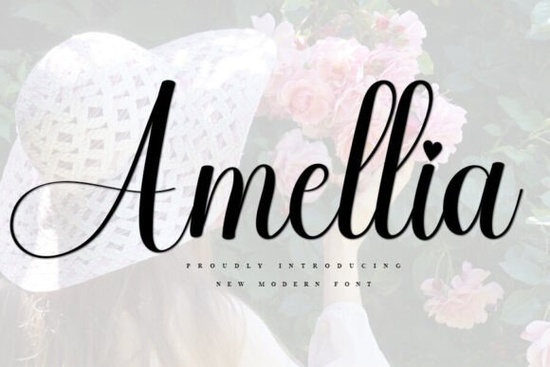
The Amellia Font is a script typeface that blends a fresh, modern feel with understated elegance. If you're working on wedding invitations, logo designs, social media banners, or printable crafts, this font offers a clean yet expressive look that fits right in. It's one of those typefaces that doesn't try too hard but still manages to stand out and that's exactly why so many designers and small business owners keep reaching for it.
What Makes Amellia Font Different from Other Script Fonts?
There are thousands of script fonts available online, so what sets Amellia apart? It comes down to balance. Some script fonts lean too far into ornate territory and become hard to read. Others are so minimal they lose personality. Amellia sits comfortably in the middle its letterforms are smooth and connected, but each character still has enough definition to remain legible at various sizes.
This makes it a strong choice for projects where you need both style and readability. Think about wedding stationery, where guests need to read event details clearly, or a business card where your name needs to look polished without feeling stuffy. Amellia handles both scenarios well.
What Can You Use Amellia Font For?
Amellia works across a surprisingly wide range of design projects. Here are some common uses where this font really shines:
- Wedding invitations and event stationery The elegant flow of the lettering adds a romantic, personal touch.
- YouTube banners and social media graphics Its clean curves look great on screen and hold up well at different resolutions.
- Logo mockups and branding kits Especially for businesses in fashion, beauty, or lifestyle niches.
- Flyers, ID cards, and posters The simplicity of the design keeps things readable even at smaller sizes.
- Crafts and DIY projects Works beautifully with cutting machines for vinyl decals, heat transfers, and paper crafts.
- Print-on-demand products Mugs, tote bags, and t-shirts all benefit from a versatile script font like this.
If you're a print-on-demand seller, having a handful of reliable script fonts in your toolkit is essential. Amellia fits that role nicely because it pairs well with both serif and sans-serif typefaces, giving you flexibility when building out product designs.
How Does Amellia Compare to Other Popular Script Fonts?
It helps to see how Amellia stacks up against similar options. If you prefer something with a more playful, bouncy rhythm, a duo font with a casual handwritten vibe might be a better fit. For designers who want something more delicate and refined, a dainty calligraphy style with thin strokes could be the way to go.
On the other hand, if you're drawn to warm, cozy aesthetics perfect for café branding or seasonal designs a script with a relaxed coffeehouse feel might catch your eye. And for those who love classic calligraphy with flowing swashes, a traditional calligraphy option with elegant details is worth exploring.
Amellia holds its own among these choices because it doesn't box you into one specific mood. It's elegant enough for formal projects but approachable enough for everyday designs.
Is Amellia Font a Good Fit for Small Businesses?
Short answer: yes, especially if your brand leans toward a soft, feminine, or lifestyle-oriented identity. Small businesses often struggle to find fonts that look professional without requiring a full design team. Amellia solves that problem you can drop it into a simple logo, a thank-you card for customers, or packaging labels, and the result looks intentional and polished.
It's also a smart pick for Etsy sellers and handmade business owners who create their own marketing materials. Having a beautiful script font that works across multiple project types saves time and keeps your branding consistent.